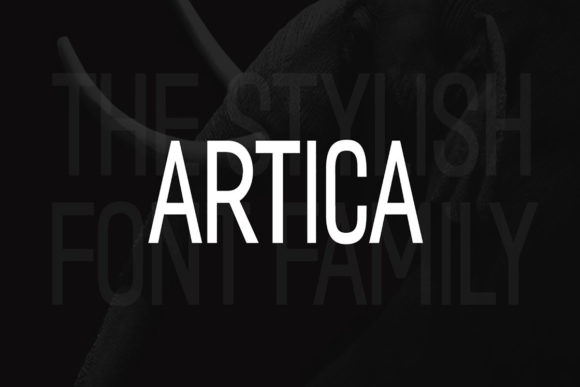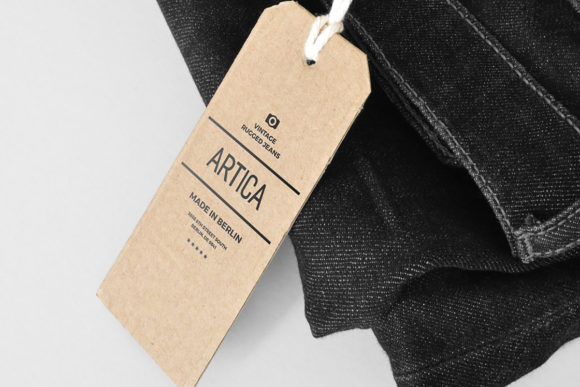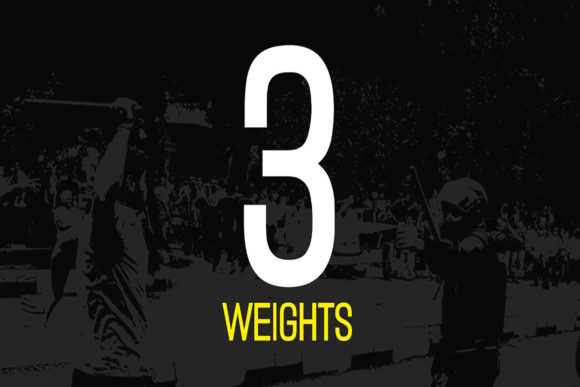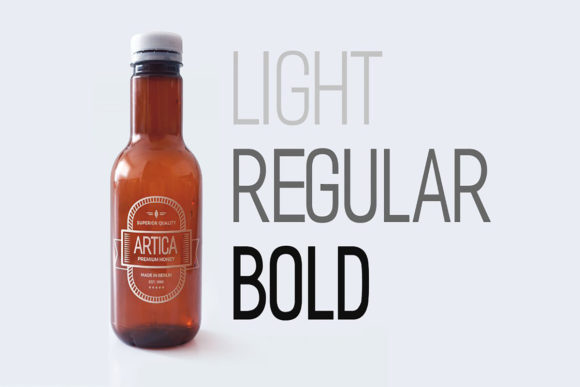
Artica Font: A Modern Sans Serif for Minimalist Logo Design
About the Artica Font
Experience the unique personality of Artica Font, a font designed for impact. Artica is a cool, simple and neat display font. It can easily be matched to an incredibly large set of projects, so add it to your creative ideas and notice how it makes them stand out!
Artica’s clean lines and straightforward forms make it ideal for headlines, logos, and short, impactful statements in branding materials and posters. Its strong visual presence also works well on packaging, particularly for products emphasizing a modern or minimalist aesthetic. However, its condensed letterforms and limited character set make it less suitable for body text or long-form content like brochures or websites. Avoid using Artica in UI contexts, where legibility at smaller sizes is crucial.
Its cool and simple personality pairs well with warmer, more textured fonts. Consider pairing Artica with a classic serif like Garamond for a sophisticated contrast, or a geometric sans-serif like Futura for a modern, balanced feel. A playful script font could also work depending on the project; however, ensure legibility if used alongside Artica.
Artica projects a modern and confident personality; it’s a strong, bold choice that commands attention without being aggressive. This makes it perfect for brands seeking to convey professionalism with a touch of minimalist coolness.
Artica Font Usage Examples
Artica Font Example